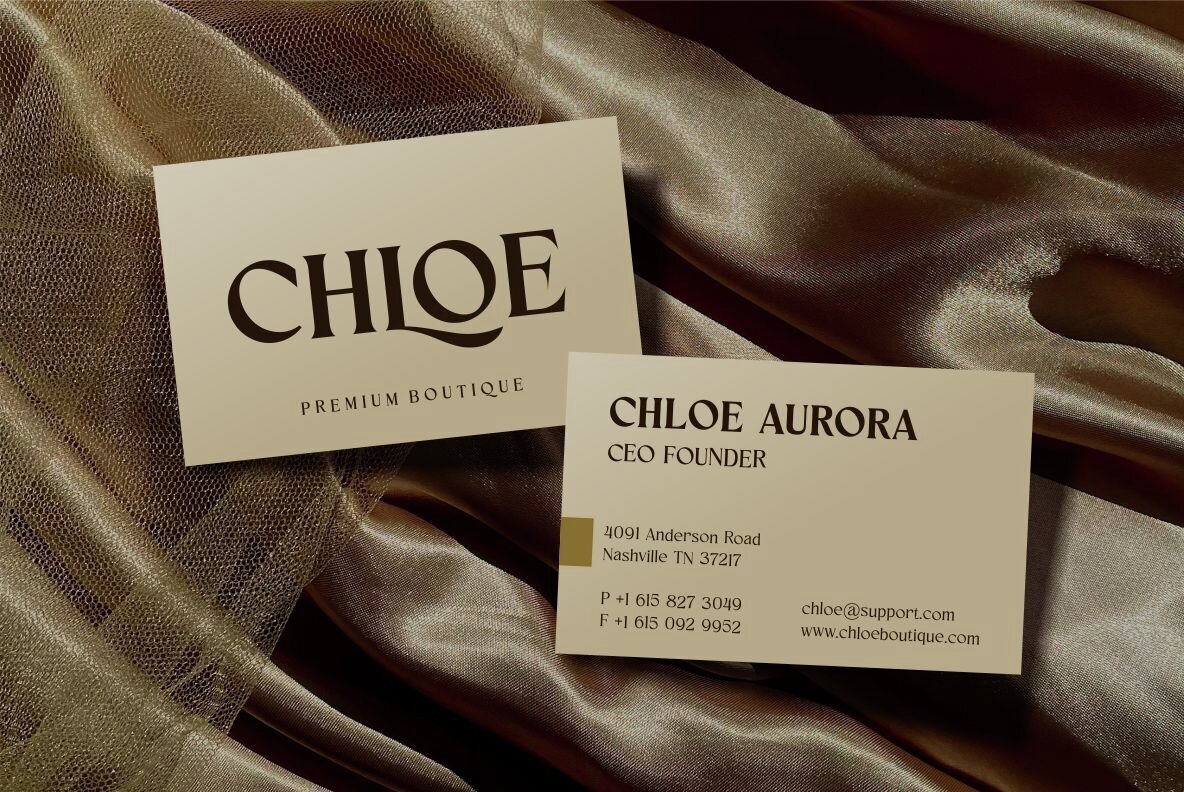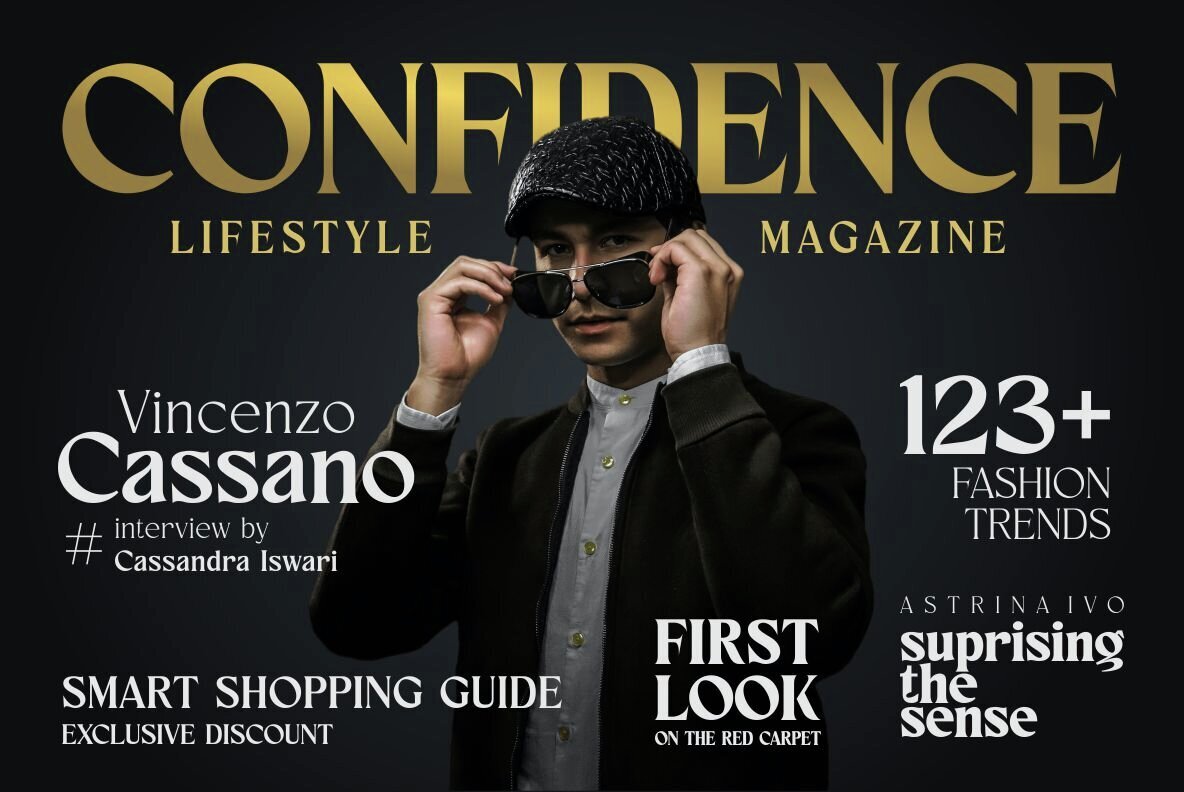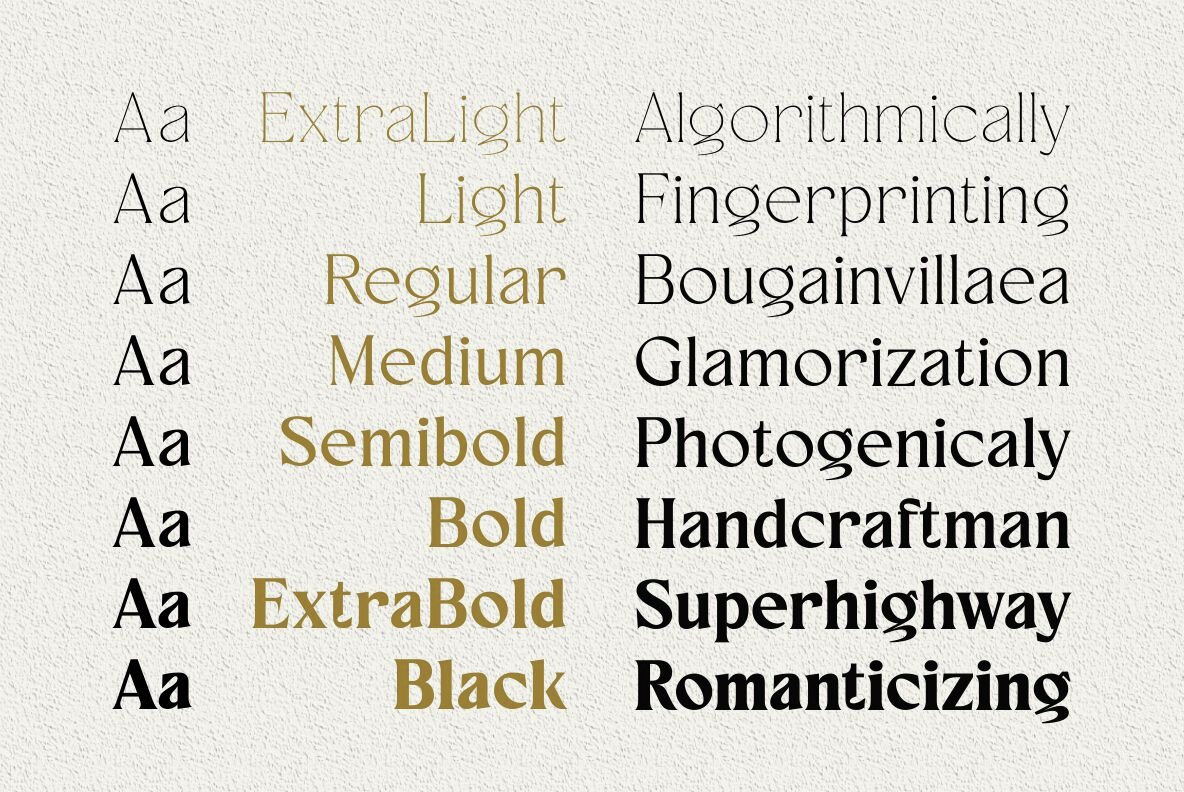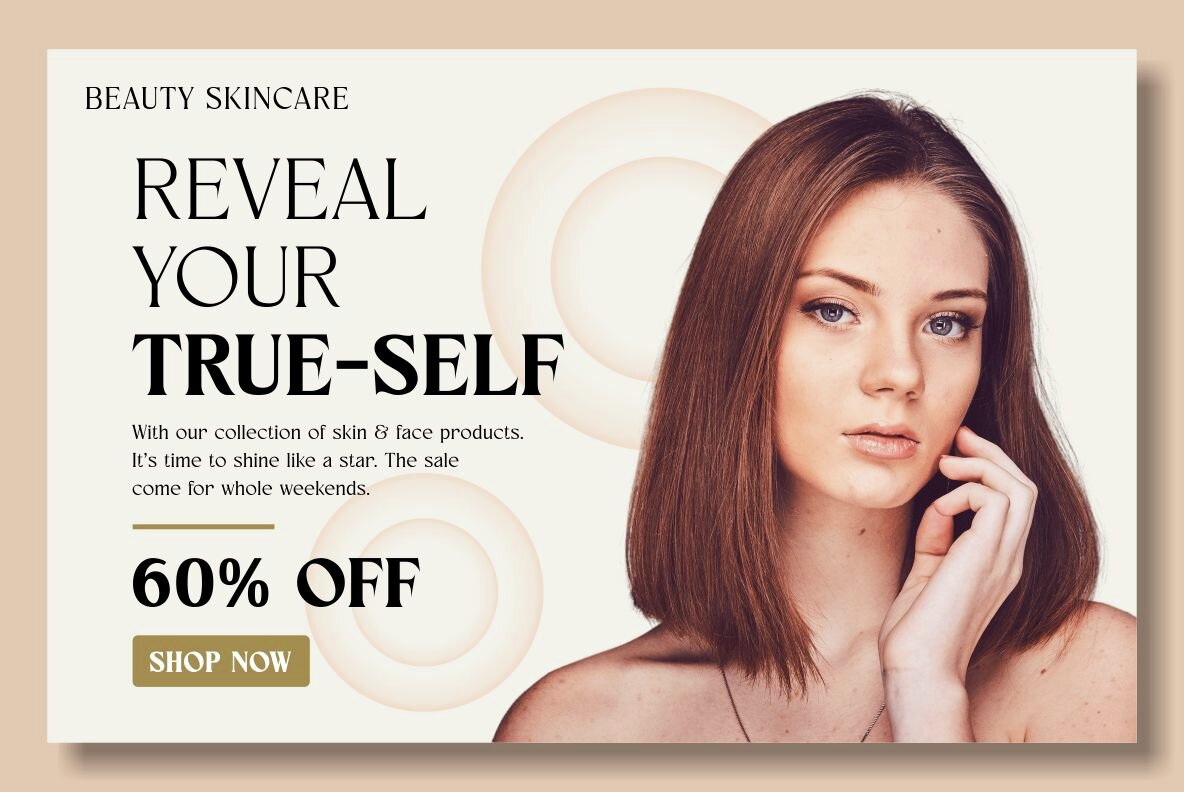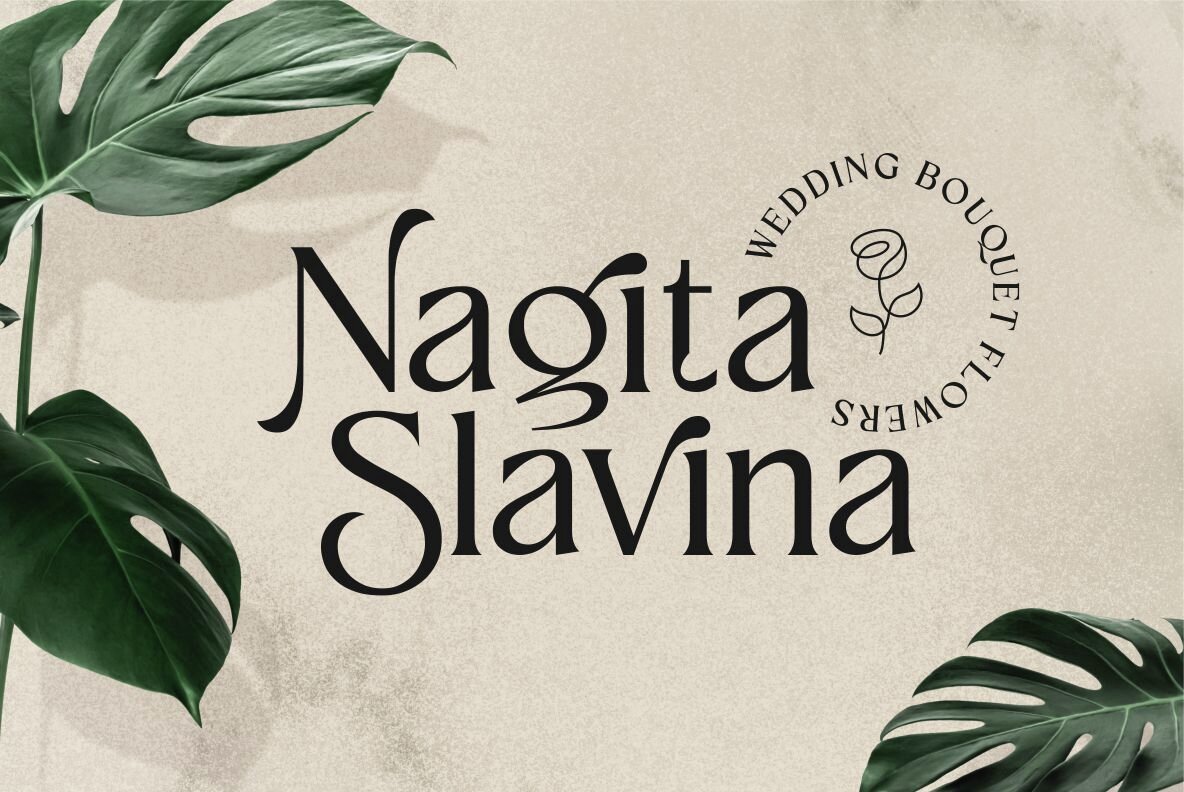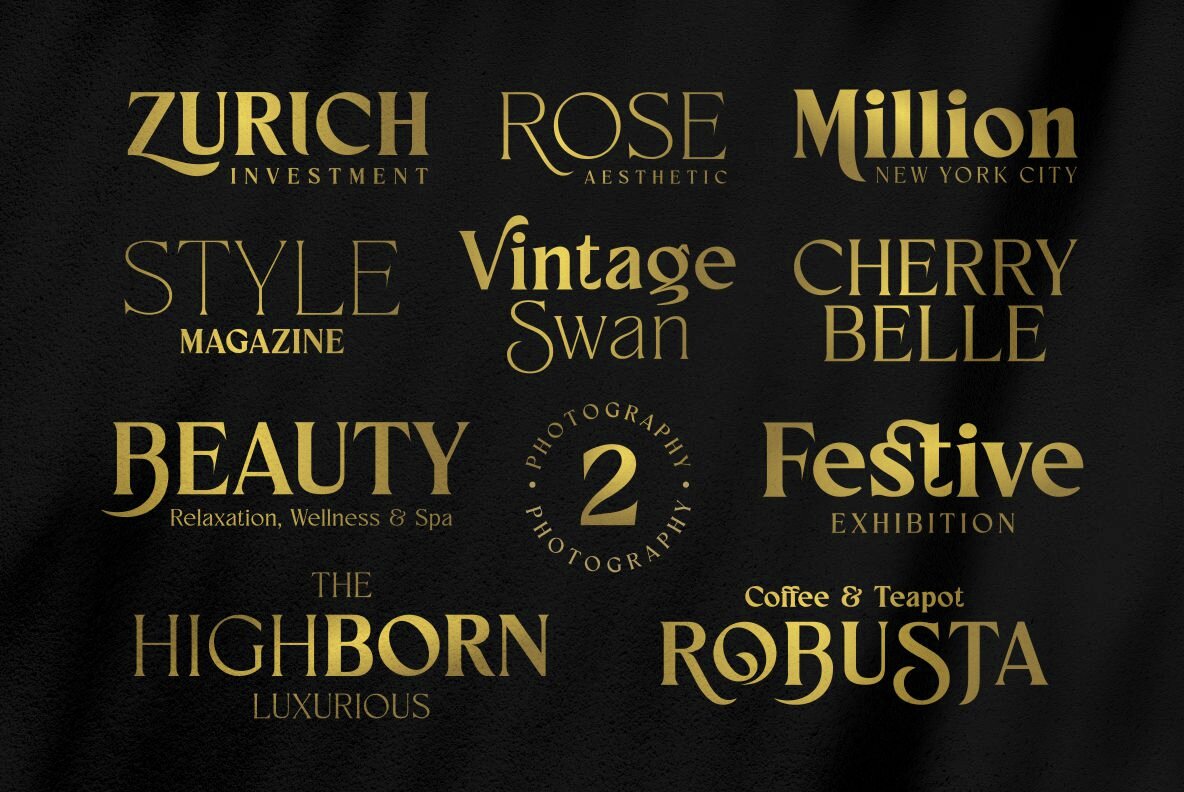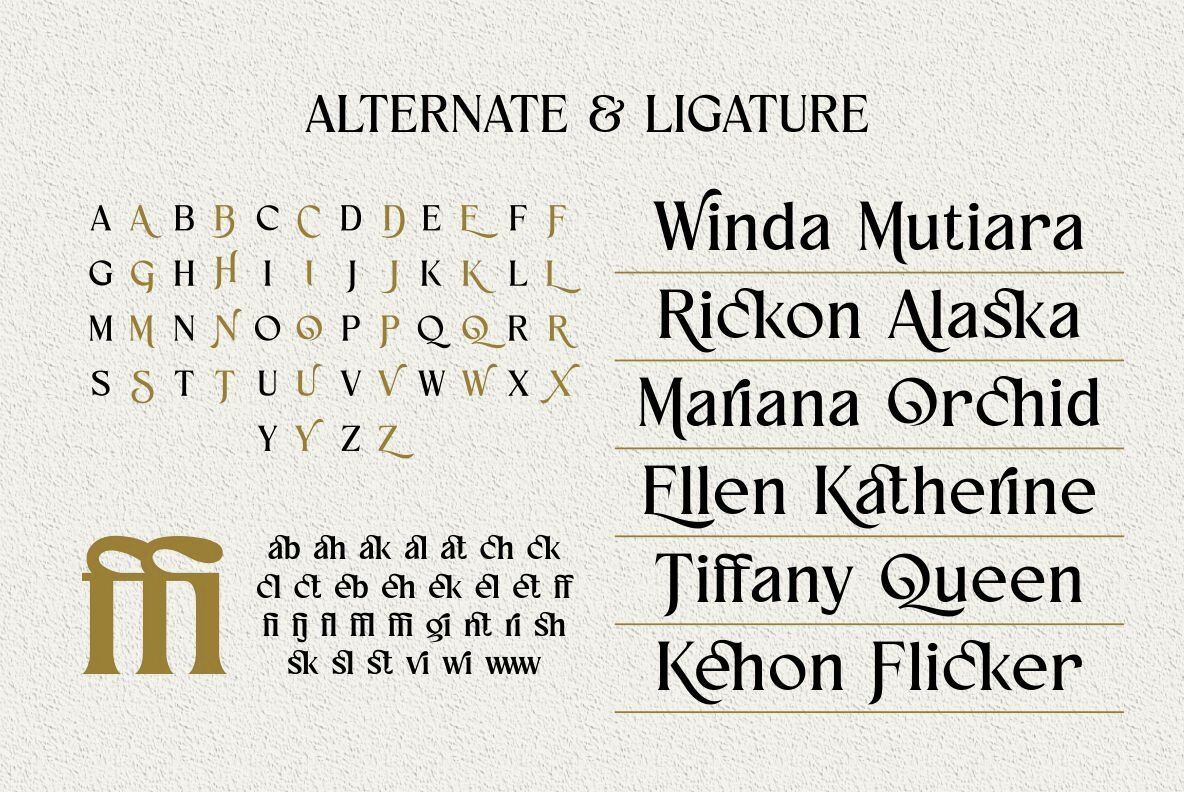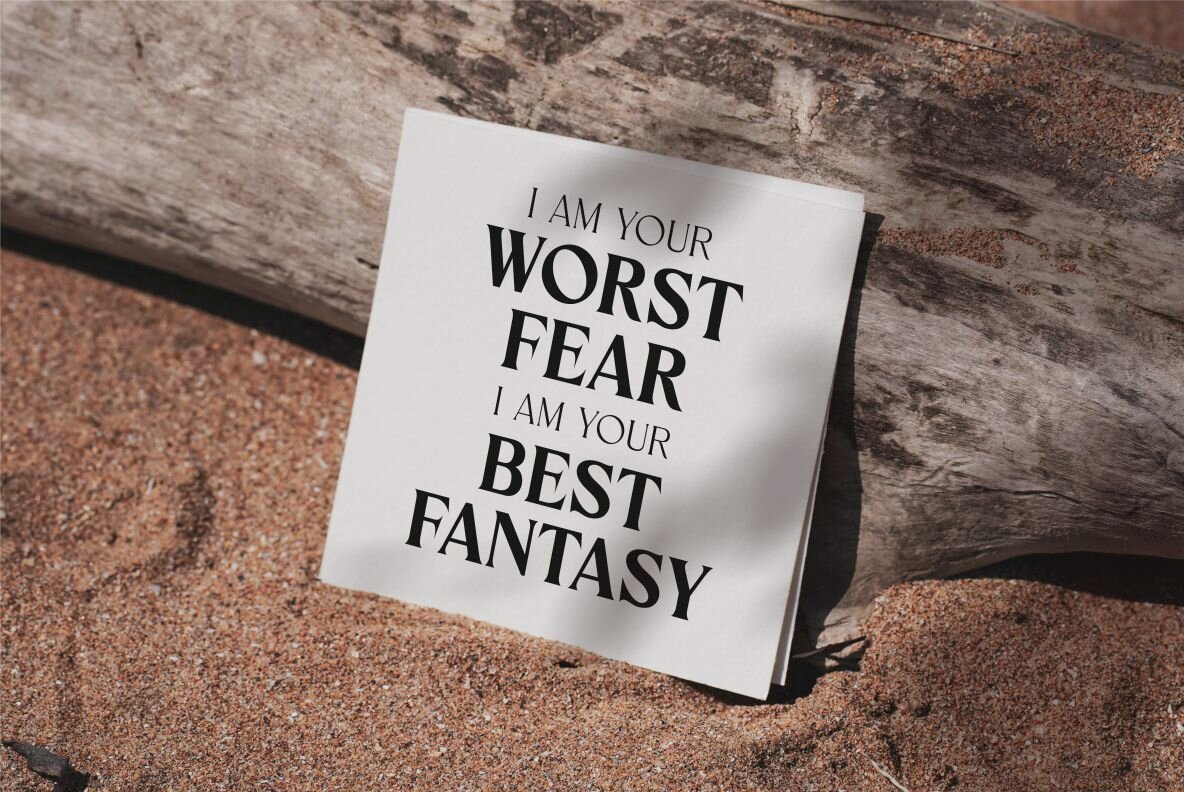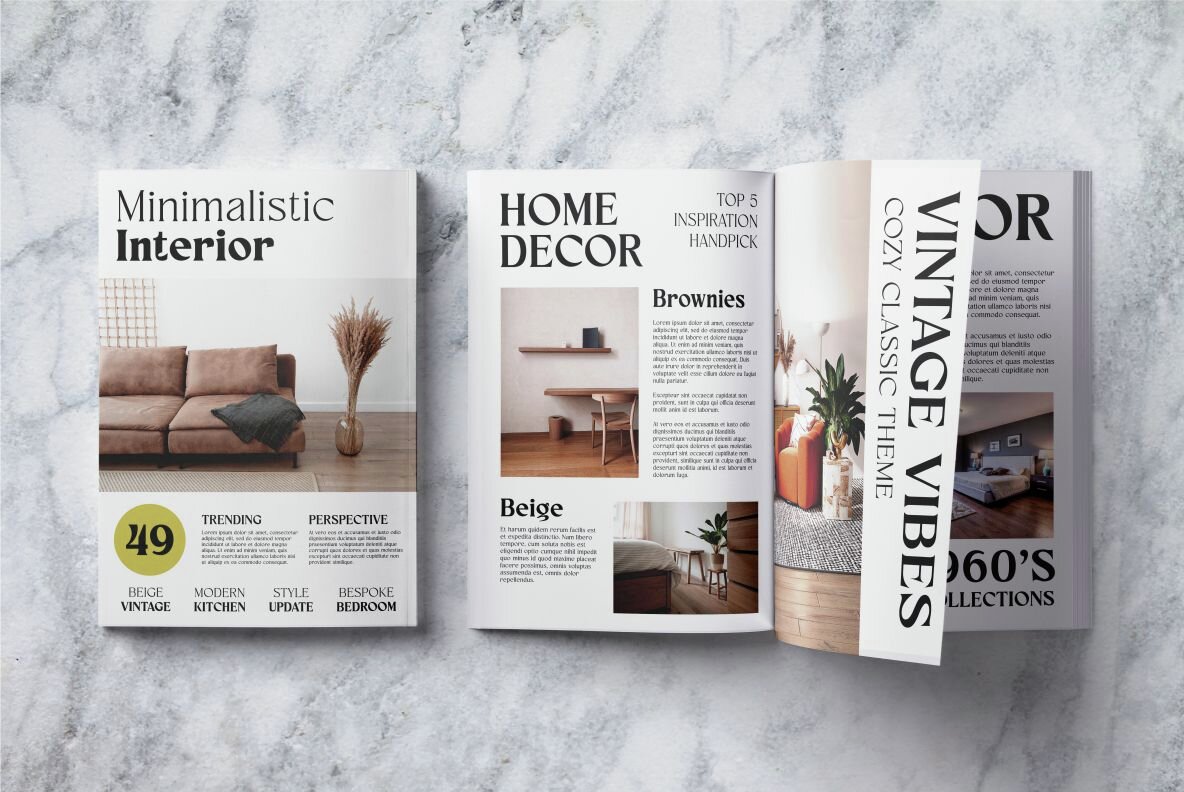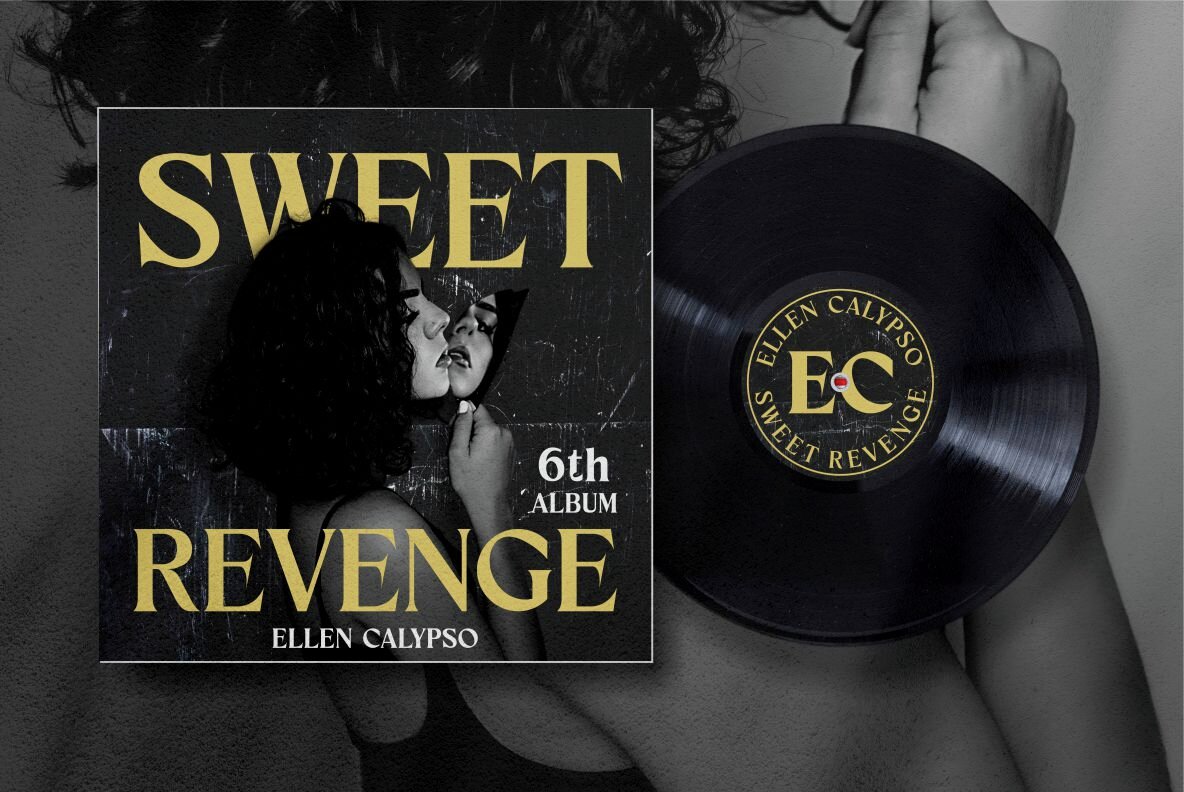
Fancyou Font
Fancyou is a classy vintage-inspired serif typeface with modern proportions consisting of 8 styles. Fancyou fonts are characterized by sharp serifs that bring a fashionable feel. You can use these fonts in modern vintage designs. These fonts are perfect for many projects such as logos, branding identity, magazines, business cards, posters, websites and many more.
Fancyou fonts are available in 8 styles: Extra Light, Light, Regular, Medium, Semibold, Bold, Extra Bold, Black. These fonts feature Open Type Format (OTF), Kerning, Ligature Style, Alternative Style for each uppercase letter, Numeral, Symbol and Multilingual Supports.